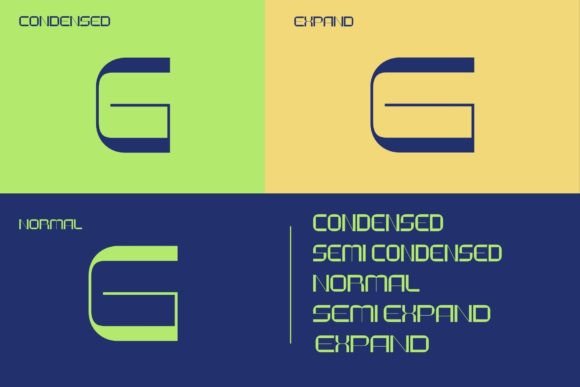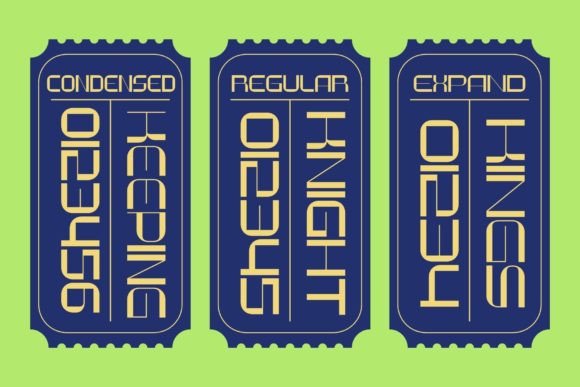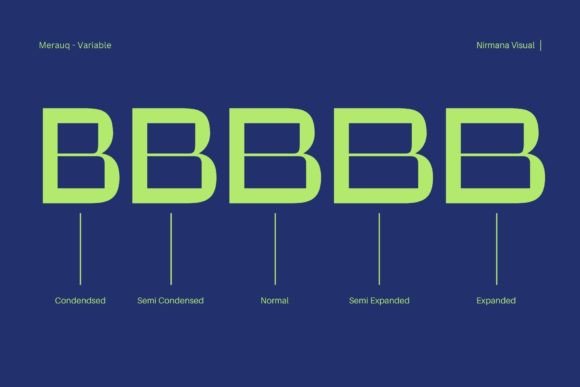
Introduction to Merauq Font
Merauq offers beautiful typographic harmony for a diversity of design projects, including logos & branding, social media posts, advertisements & product designs.
Key Features of Merauq Font
Why Choose Merauq Font?
Merauq Font offers exceptional quality and versatility, making it a valuable addition to your design toolkit. Whether you’re creating for personal projects or commercial use, Merauq Font delivers professional results.